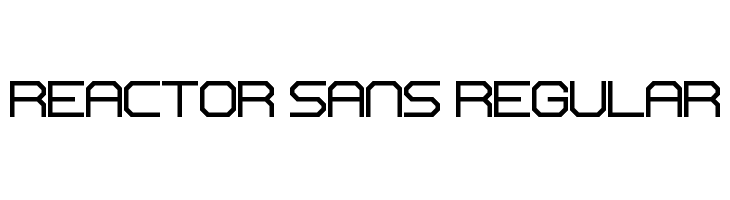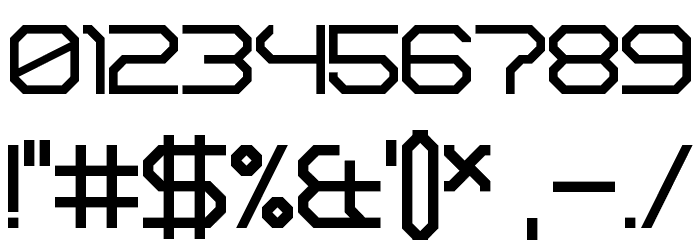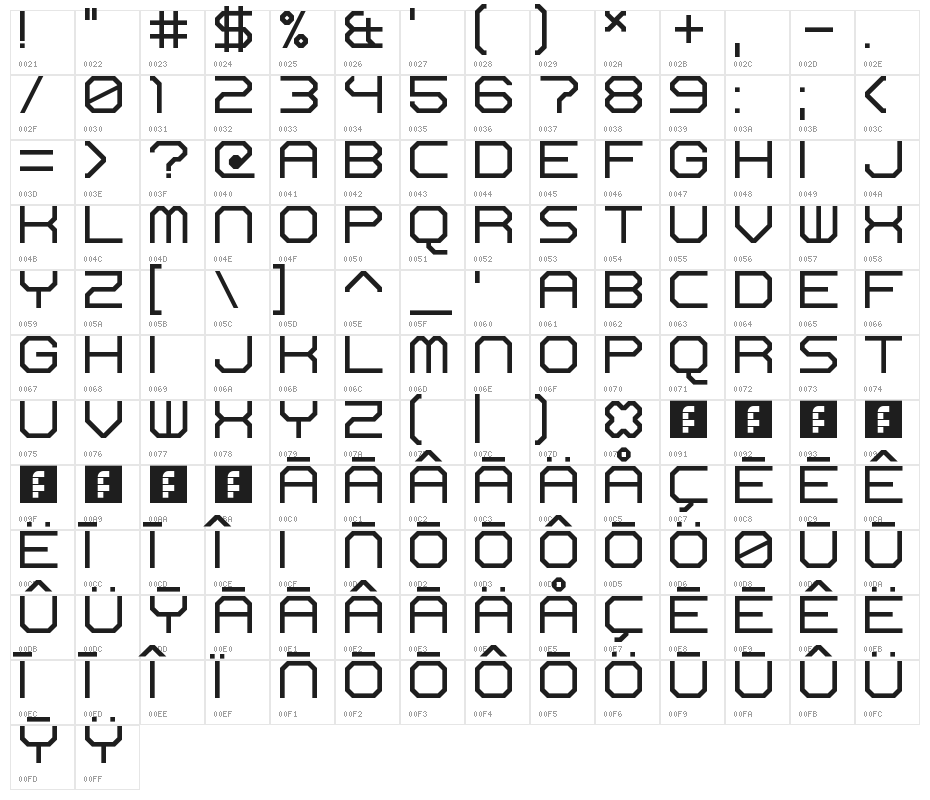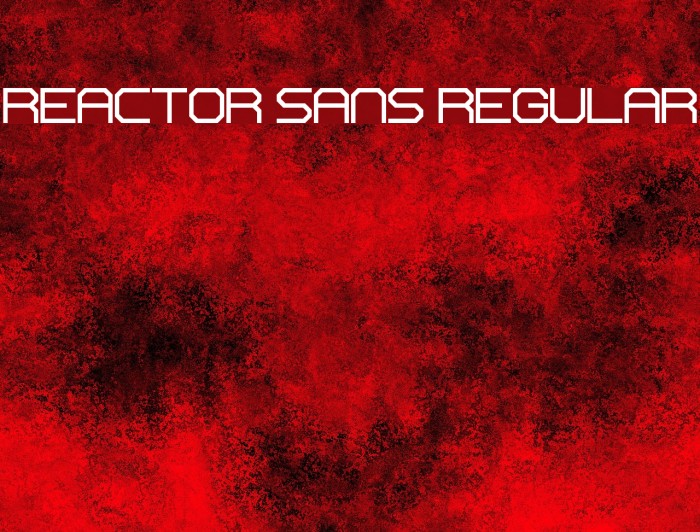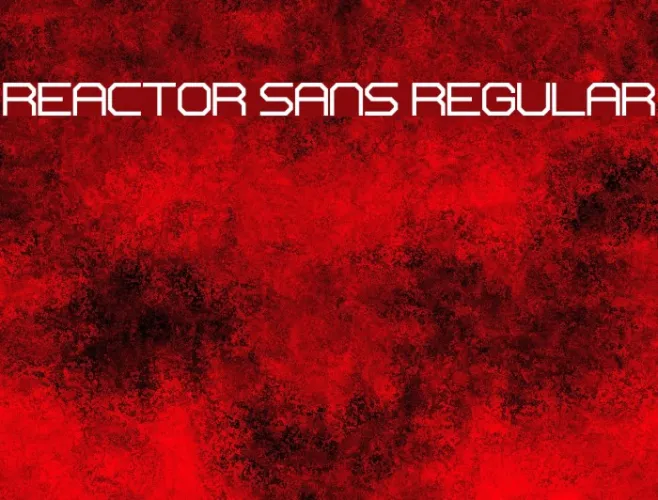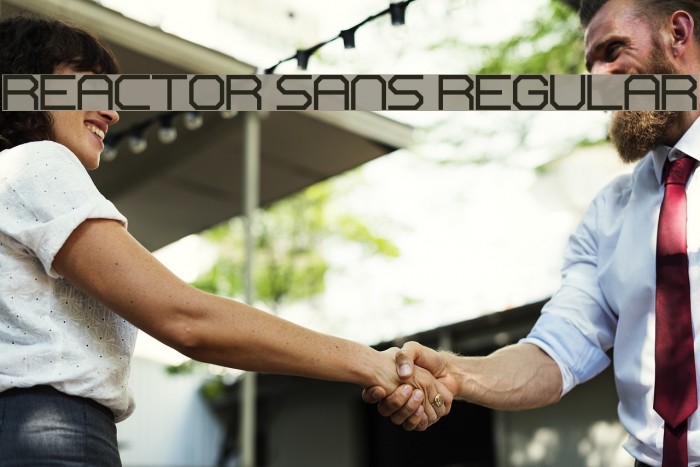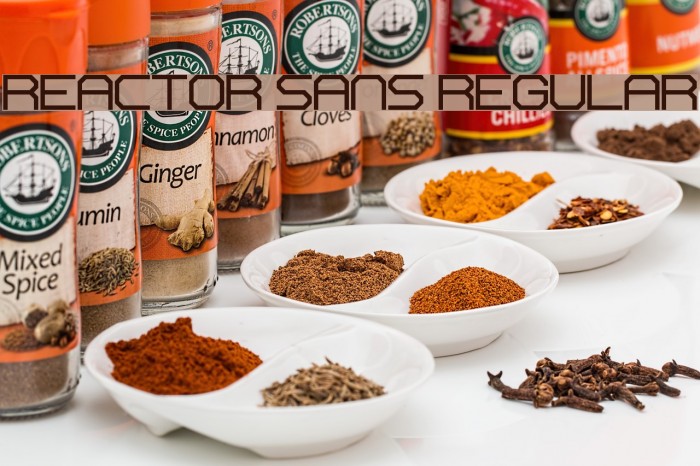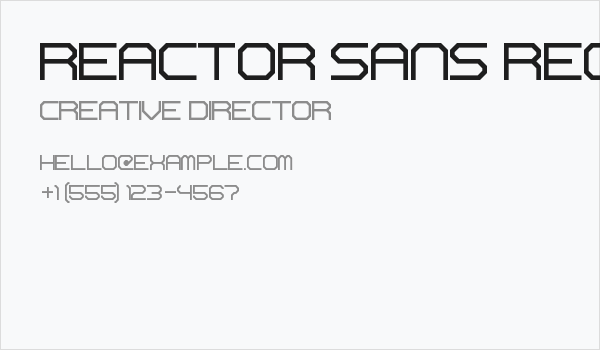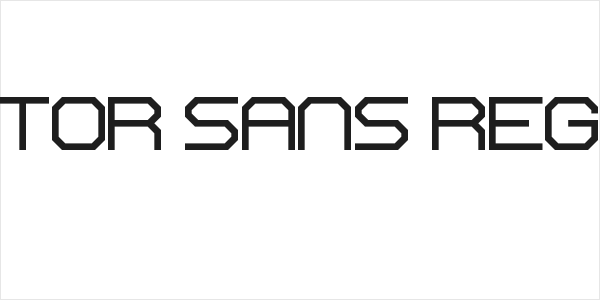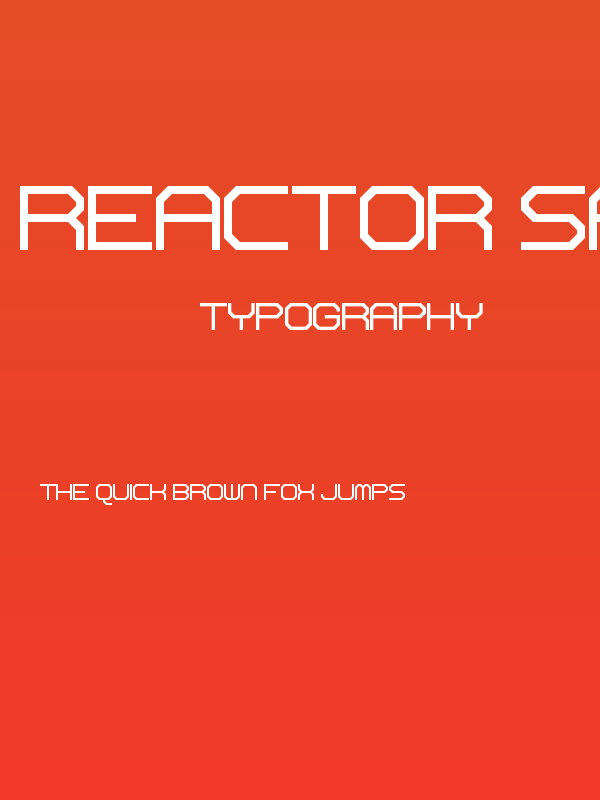
Reactor Sans Regular Font
Reactor Sans Regular Description
This font features a geometric, angular design with a futuristic and technical appearance. The characters are constructed with straight lines and sharp corners, giving it a digital or mechanical feel. The uppercase and lowercase letters maintain a consistent height, contributing to a uniform and structured look. The numerals and special characters follow the same design principles, ensuring a cohesive style throughout. Its distinct and bold presence makes it suitable for projects that require a modern and edgy aesthetic.
Proposed ProjectsIdeal for technology branding, sci-fi themed projects, video game interfaces, and modern posters.